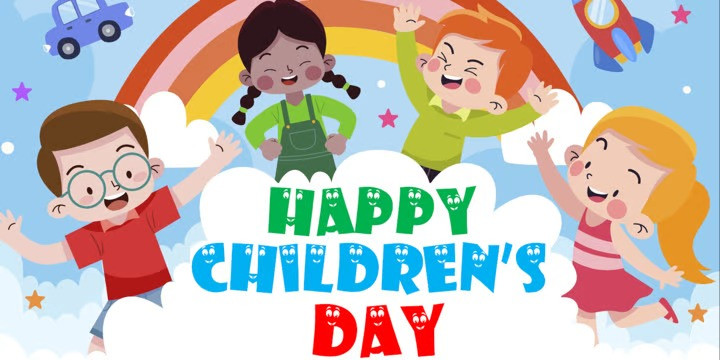
Kids Smile Font
Kids smile Display Font is a typeface designed for children, where the child sees the letter similar to cartoon characters.
The eyes and smile make Mkmesmile lively, cheerful, and friendly.
Good for children’s books, posters, websites, apps, titles, flyers, and posters.
Mkmesmile will work best in medium to large sizes and titles.